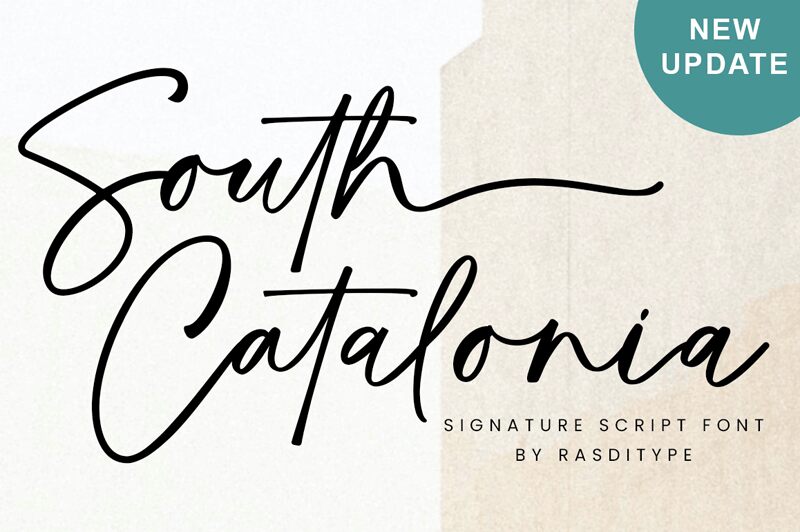
South Catalonia
South Catalonia is a captivating handwritten signature font, meticulously crafted by Ramli Setiadi. This light, flowing script exudes a sense of elegance and effortless sophistication, with each stroke conveying a touch of artistry and personal flair. The font's organic, natural rhythm captures the essence of a handwritten signature, inviting viewers to connect with the warmth and authenticity it embodies.
South Catalonia's versatility makes it a compelling choice for a variety of design projects. Its expressive qualities lend themselves beautifully to branding, packaging, and editorial design, where a personal, bespoke touch is desired. Similarly, this font would shine in wedding invitations, greeting cards, and other personal communications, adding a touch of warmth and charm to any composition.